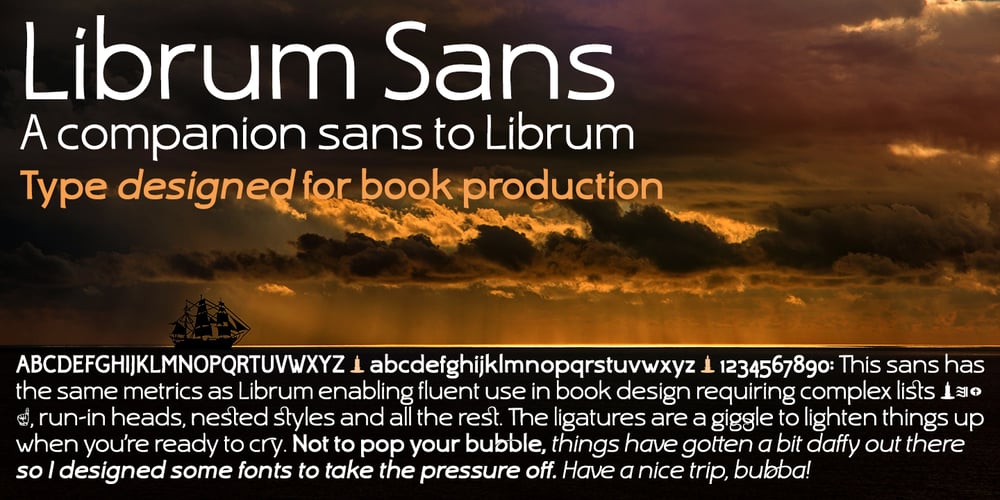
Librum Sans
Librum Sans font
Librum Sans Font Family was designed by David Bergsland and published by Hackberry Font Foundry. Librum Sans contains 4 styles and family package options. This is the companion sans family to make the Librum serif families work as well as they do. By companion, I do mean stylistically compatible. But mainly, they have the same vertical metrics. So they work very well for run-in heads, inline character styles, and all the rest of the needs in large books with complex formatting. They are designed for use in InDesign, and they work very well in that environment. The fonts use the same OpenType feature files as the rest of the Librum families. The feature files for the italic and bold are more limited—as I have rarely used things like that [over the past 20+ years]. The character shapes are a bit whimsical. The original ancestor of this book design sans was a very playful font I released as Aerle. It’s been calmed down a lot but is still loose and friendly. For a great deal, see Librum Book Design Group, for a package containing all fifteen fonts!